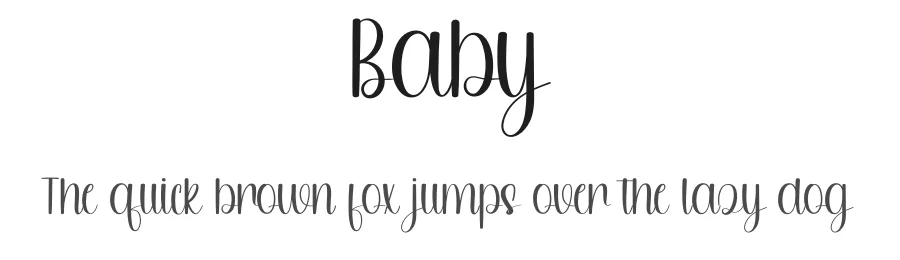
About Holly Font
Holly Specifications
| Designer | dian haniffan hadi |
Holly Font is a script font that shines as a display or heading face. Pair it with a clean sans-serif or serif font for body text β the contrast creates a clear hierarchy while the two styles stay balanced and easy to read.
Holly Font
by Bearytype